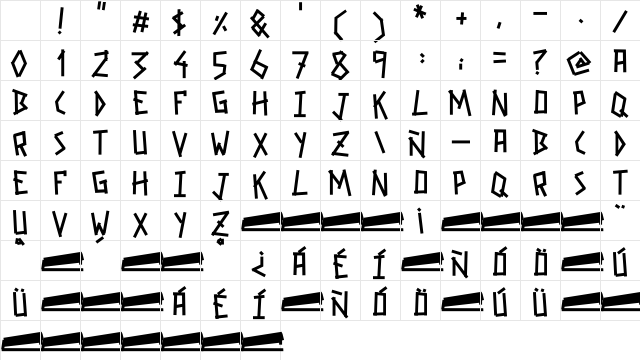
Complete GRAPAFONT DemiBold glyph index. Displaying only characters natively supported by GRAPAFONT DemiBold font.
GRAPAFONT is a composed and adaptable typeface that performs quietly and consistently across a wide range of design contexts. Its bold stroke weight gives it real presence on the page.
Pro Tip: Use GRAPAFONT in both headline and body roles to test its range before committing to a single application.